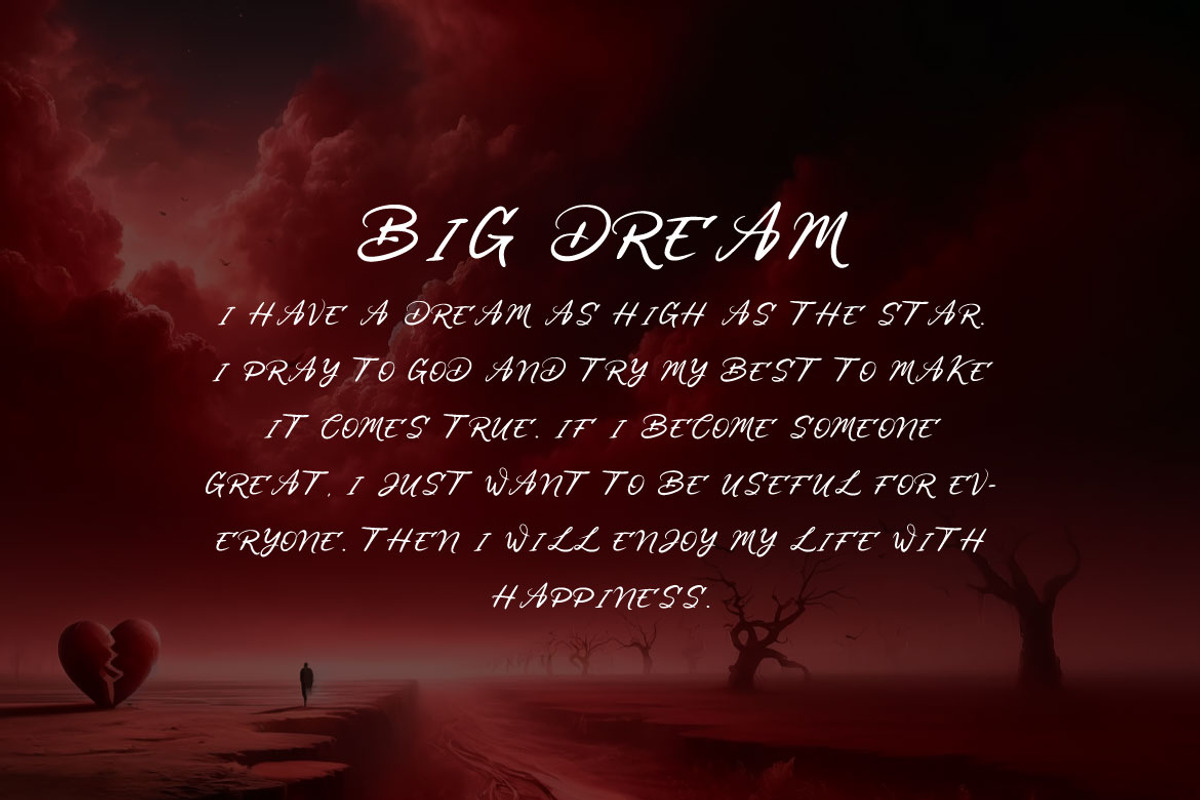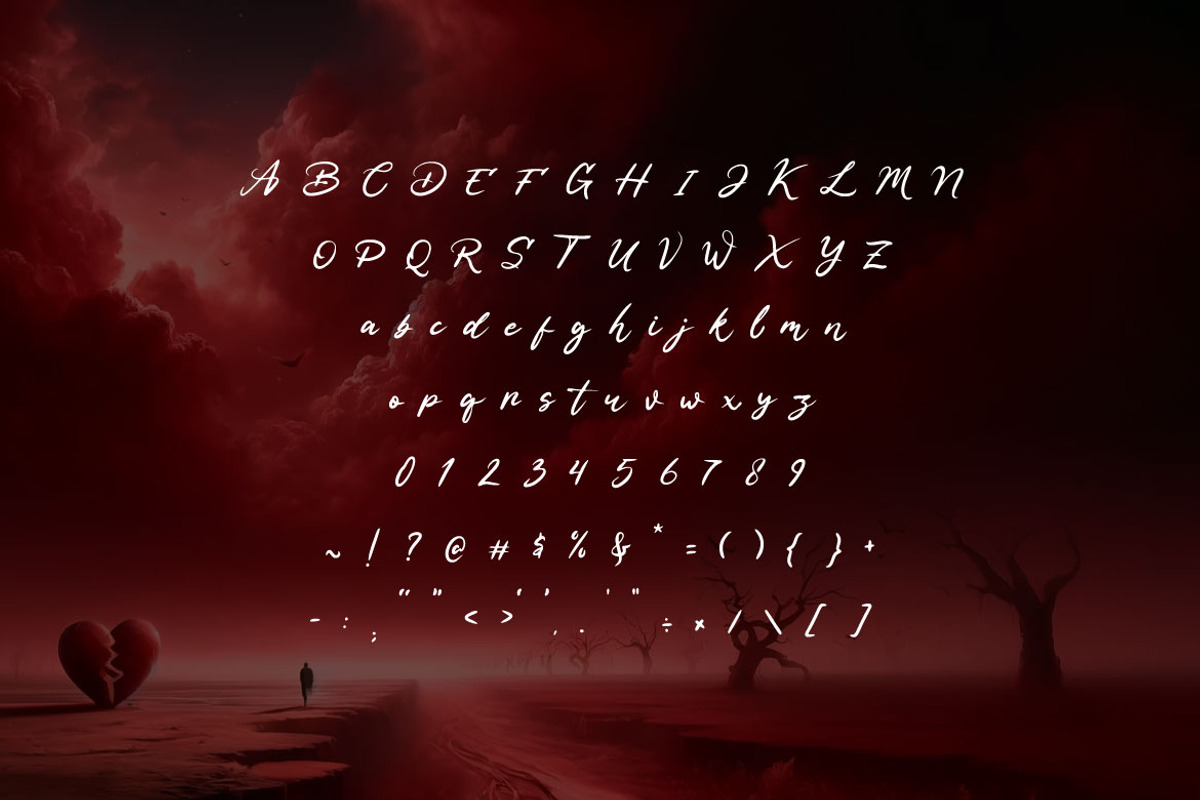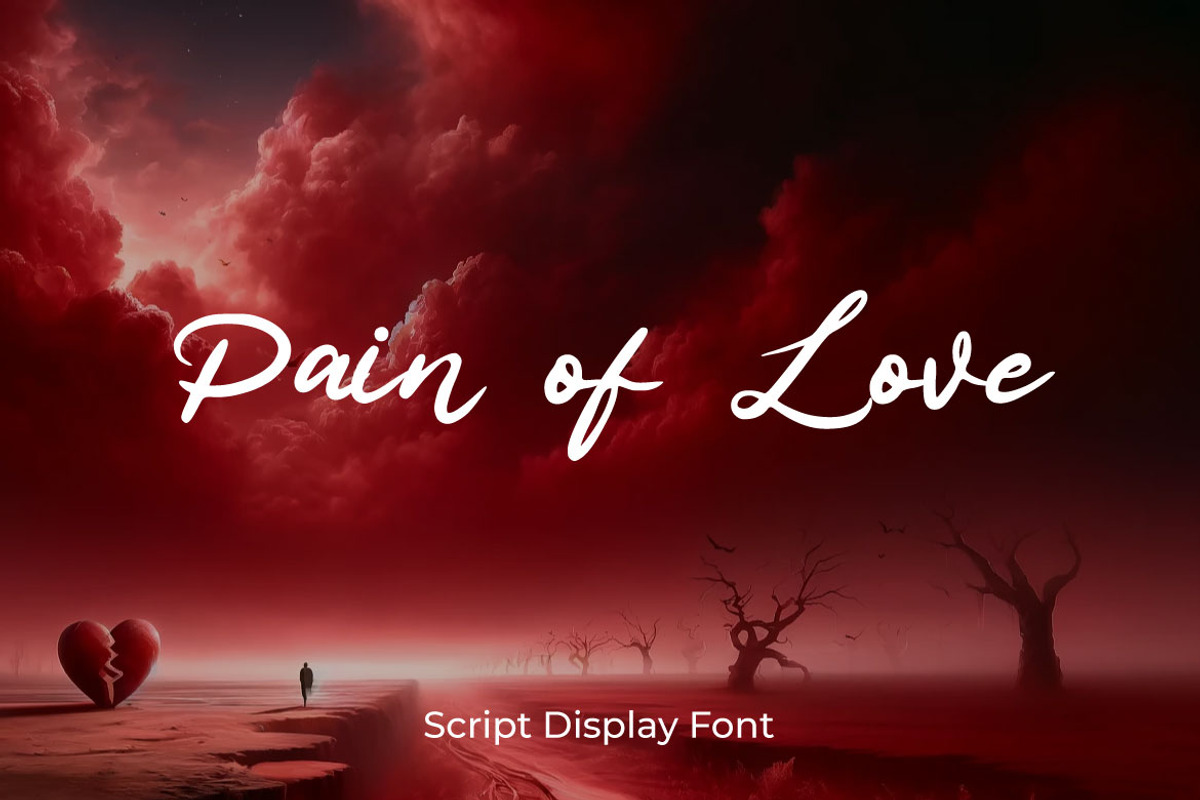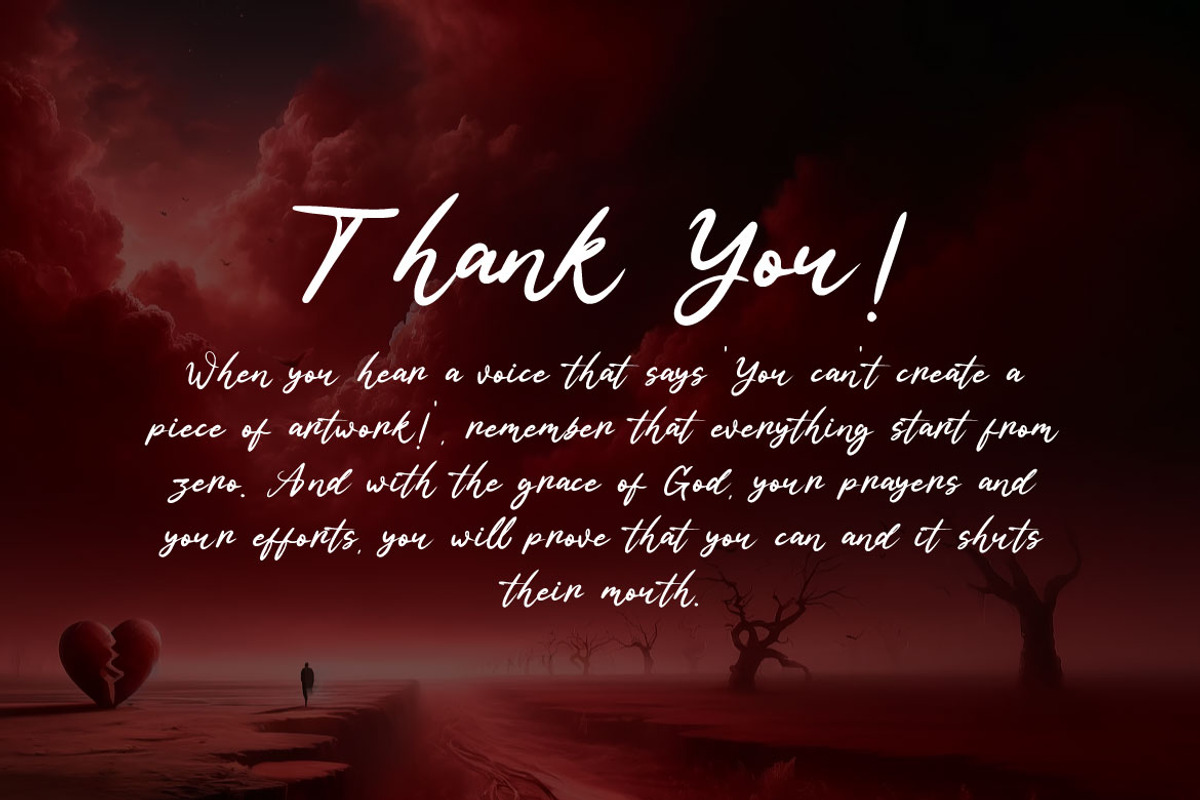
Pain of Love - Script Display Font
Introducing Pain of Love, a beautifully crafted script font that brings a touch of elegance and sophistication to your designs. This font is perfect for creating stunning invitations, stylish logos, modern branding, and much more. With Pain of Love, you can add a touch of luxury and personal charm to your projects. Whether you’re designing a romantic wedding invitation or an elegant brand logo, this font will provide the perfect finishing touch.